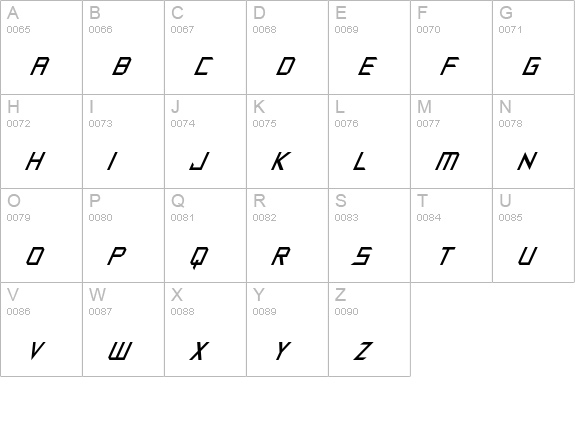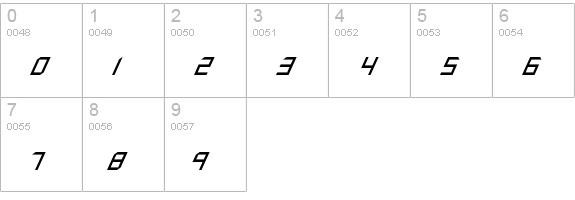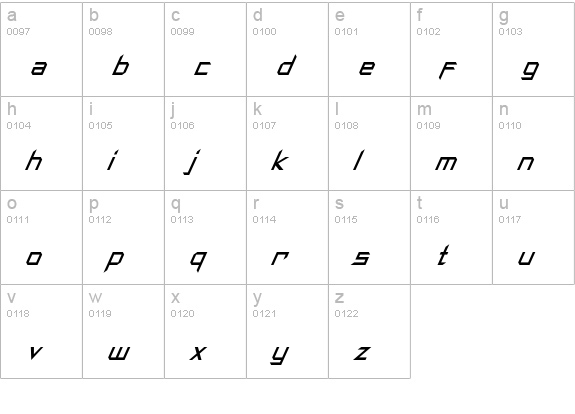
Synthetic Sharps Italic is a distinctive, italic variant in the Synthetic typeface family \xE2\x80\x94 well suited to design and typography projects.
Synthetic Sharps Italic font is a unique and captivating typeface that effortlessly blends elegance with modernity. Its sleek and stylish design features dynamic curves and sharp angles, creating a visually striking and sophisticated look. The italicized letters add a touch of dynamism and movement to the text, making it perfect for projects that require a sense of energy and excitement. This font is not only visually appealing but also highly versatile. Its clean and legible characters make it suitable for a wide range of design applications, including logos, headlines, posters, branding materials, and more. Whether you're designing for print or digital platforms, Synthetic Sharps Italic font is sure to make a lasting impression. One of the best features of Synthetic Sharps Italic font is that it is available for free download at FontsMarket.com. This means that you can access the font without any cost, making it an excellent choice for both personal and commercial projects. With just a few clicks, you can add this stunning typeface to your font library and start using it in your designs right away. Don't miss out on the opportunity to elevate your designs with Synthetic Sharps Italic font. Download it for free at FontsMarket.com and explore the endless creative possibilities it offers. Whether you're a professional designer or a typography enthusiast, this font is sure to become a valuable addition to your collection.